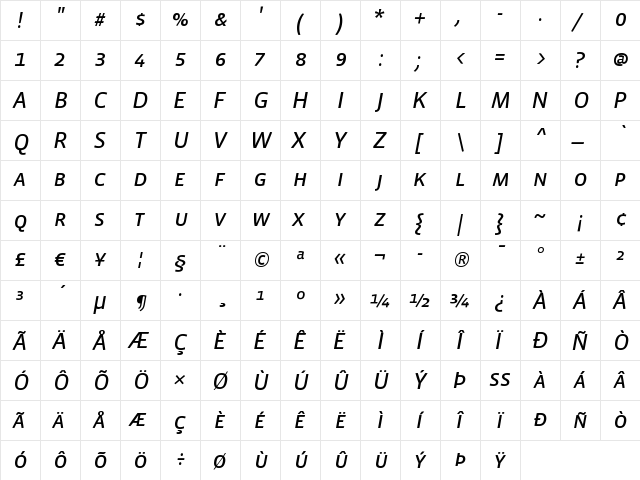
VistaSansSCRegIta Regular
| Foundry | Xavier Dupre |
| Designer | Xavier Dupre |
Design Context for VistaSansSCRegIta Typeface
VistaSansSCRegIta is a composed and adaptable typeface that performs quietly and consistently across a wide range of design contexts.